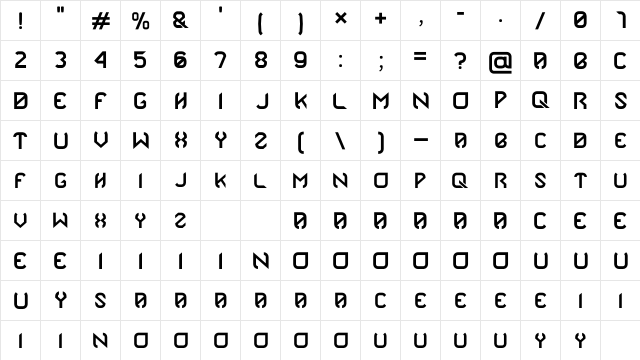
Marz Regular
Design Context for Marz Typeface
Marz is a composed and adaptable typeface that performs quietly and consistently across a wide range of design contexts.